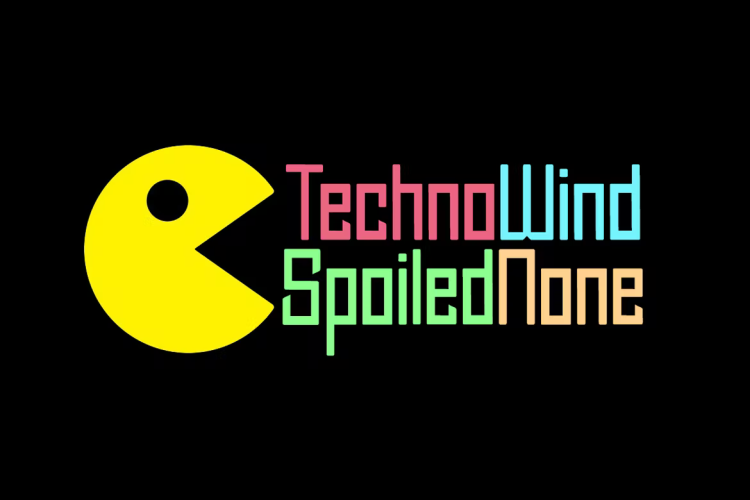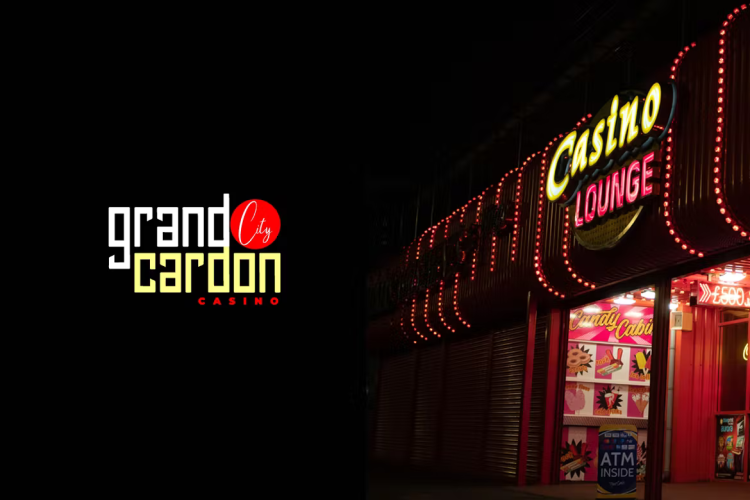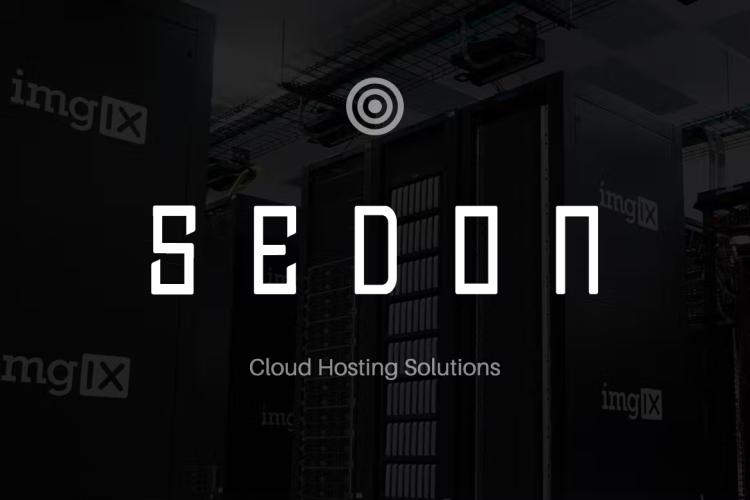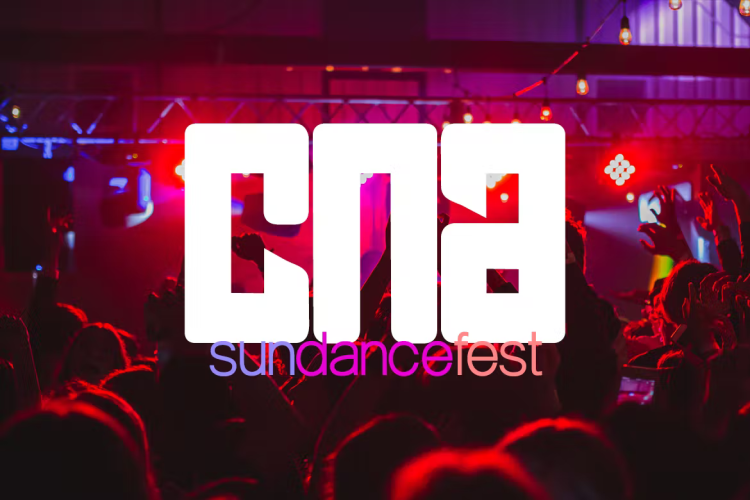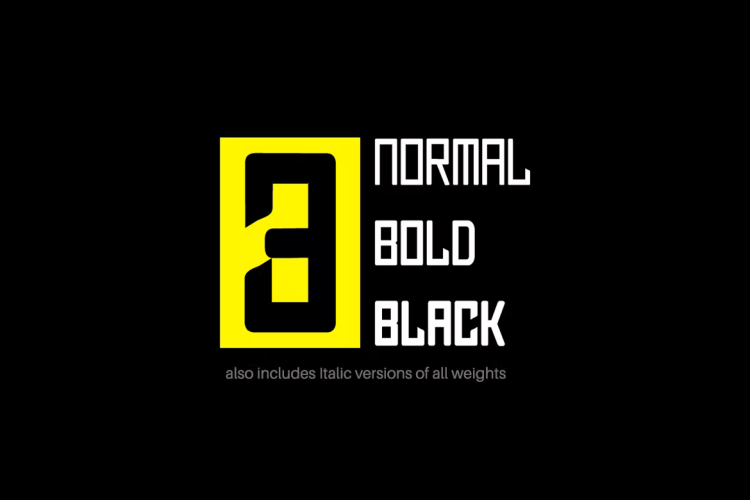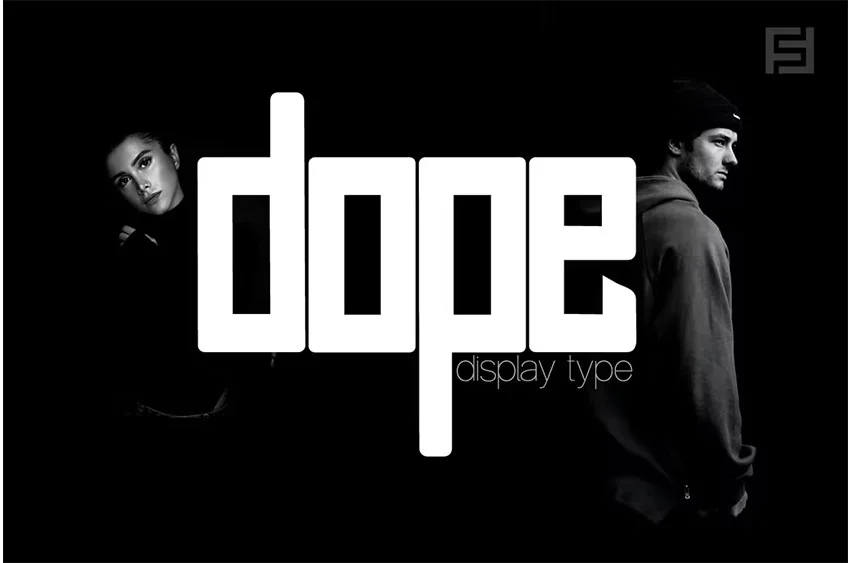
DOPE Font
DOPE Font is a unique typeface perfect for headlines, big text, branding, logotypes & display usage. This font can be an excellent choice for creating outstanding logos,…
DOPE Font is a unique typeface perfect for headlines, big text, branding, logotypes & display usage. This font can be an excellent choice for creating outstanding logos, promotional content, and marketing graphics that can bring uniqueness and freshness.
The typeface will be perfect for creating unique monograms, logos, and identities with these combinations. Please see the examples shown above to get an idea of the capability of this typeface.
The typeface comes with Extended Latin character sets including Western European, Central European, and South-Eastern European character sets (a total of 281 glyphs).
The font was designed by Lis at Fantastica, distributed by Designova.
Where DOPE Font works best
Websites & landing pages
DOPE Font is optimized for screen reading, which makes it a solid body or heading font for blogs, e-commerce and SaaS sites.
Email & newsletters
Clear web-style letterforms improve readability in marketing emails.
Dashboards & documentation
Great for developer docs, admin panels and data-heavy interfaces.
What is DOPE Font good for?